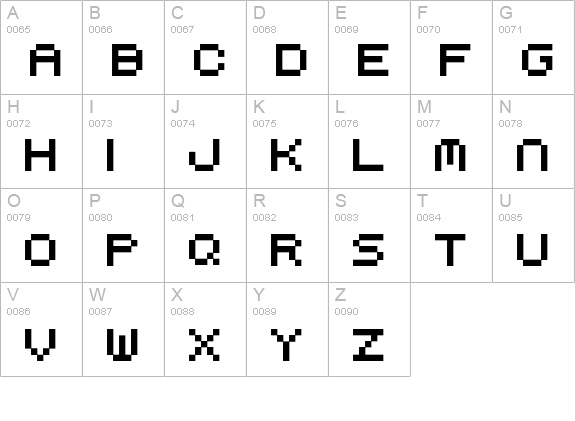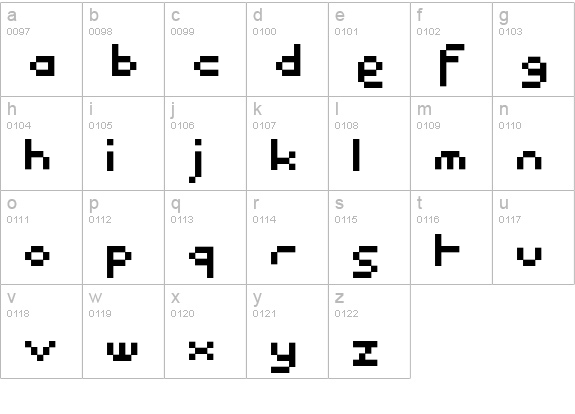
Pixel Font Details
Introducing Pixel Font, a stunningly modern and versatile typeface that is sure to captivate and inspire. This font is the perfect blend of retro charm and contemporary design, making it ideal for a wide range of creative projects. With its meticulously crafted pixels, Pixel Font brings a sense of nostalgia to any design. Whether you're creating a retro-inspired video game, designing a website with a vintage aesthetic, or adding a playful touch to your branding, this font will effortlessly elevate your work. Pixel Font offers a wide range of characters, including uppercase letters, lowercase letters, numbers, and a variety of special characters. Its clean and crisp lines ensure optimal legibility, even at smaller sizes. Each character is carefully designed to maintain a consistent pixel density, resulting in a visually pleasing and harmonious overall look. One of the most attractive aspects of Pixel Font is that it is absolutely free. That's right, you can download this exceptional font without spending a dime. Simply head over to FontsMarket.com and easily access this font to enhance your creative endeavors. Whether you're a professional designer, a student, or someone who simply appreciates beautiful typography, Pixel Font is a must-have in your collection. So why wait? Unleash your creativity and download Pixel Font today, and let your imagination run wild with the countless possibilities this font offers. Remember, it's all freely available at FontsMarket.com, where quality meets affordability.